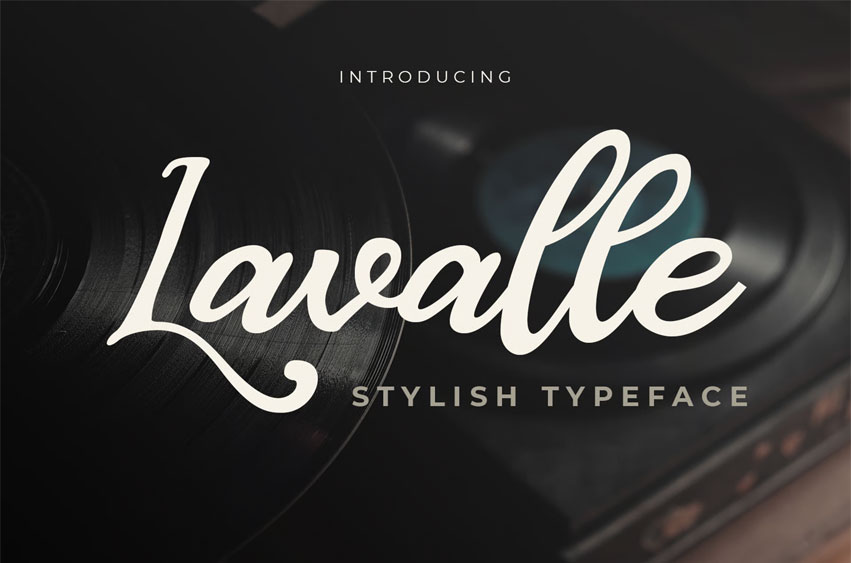
Lavalle Font
Lavalle Font Stylish Script Font is our new font and is suitable for mockups or any work.
Great for stickers, Invitation cards, brochures, etc.